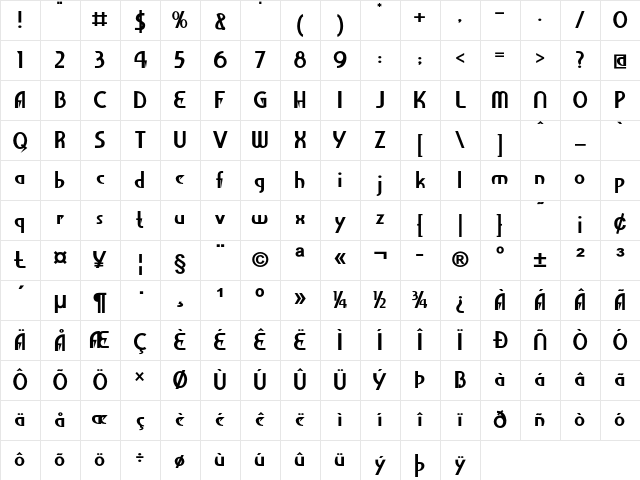
Veckio Bold
Design Context for Veckio
Veckio is a composed and adaptable typeface that performs quietly and consistently across a wide range of design contexts. Its bold stroke weight gives it real presence on the page.